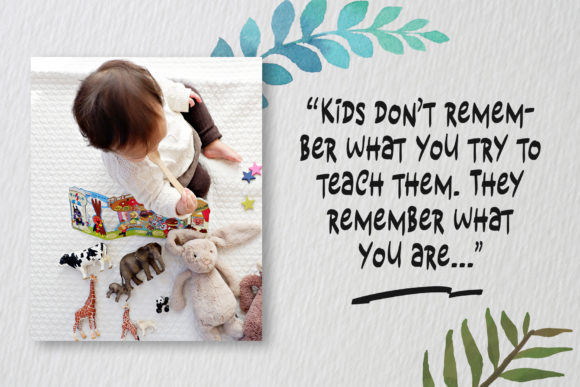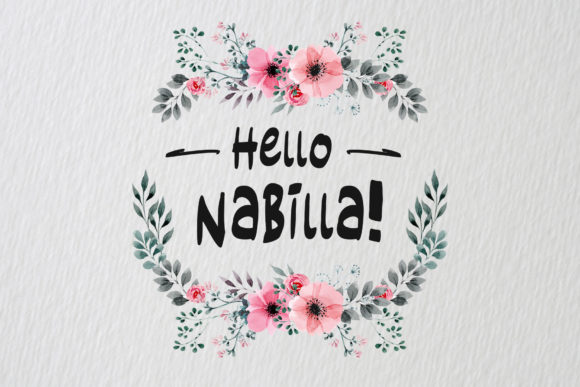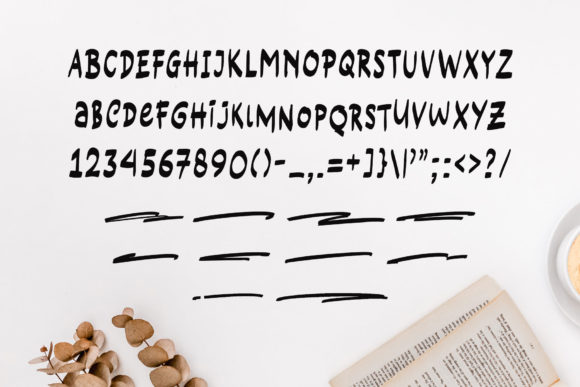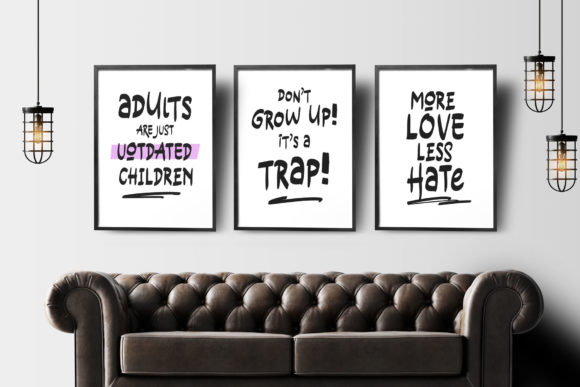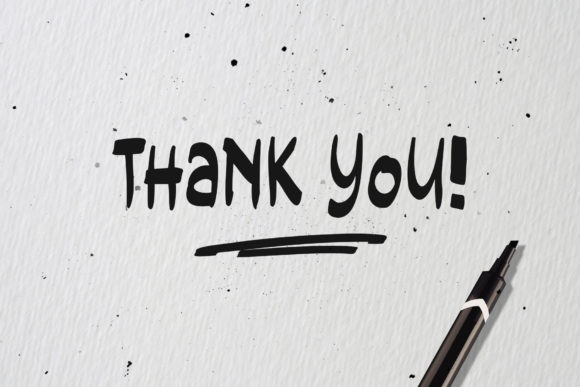
Formarker Font
About Formarker Font
Formarker is a casual, fun script font, created by using a marker. Clean and a little bit quirky, this font is the perfect fit for all of your logos, branding, social media, and crafty DIY projects.